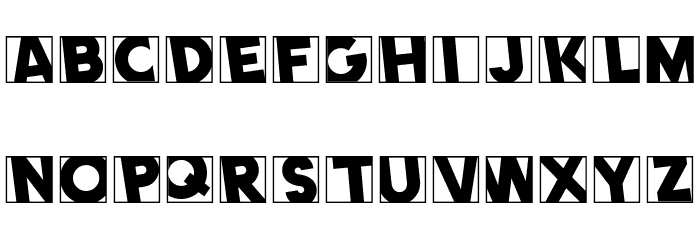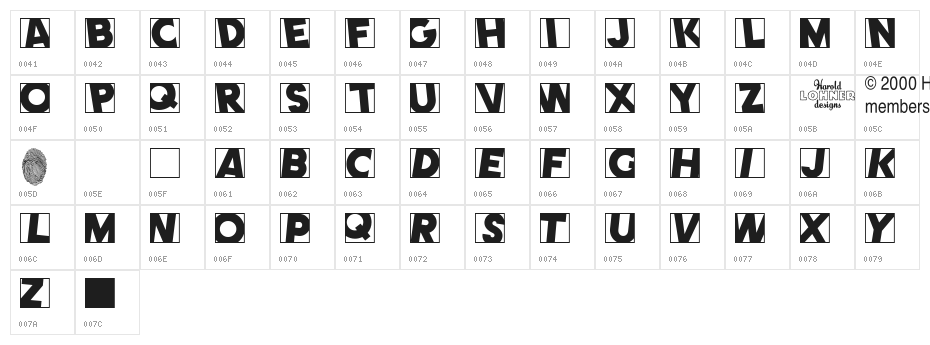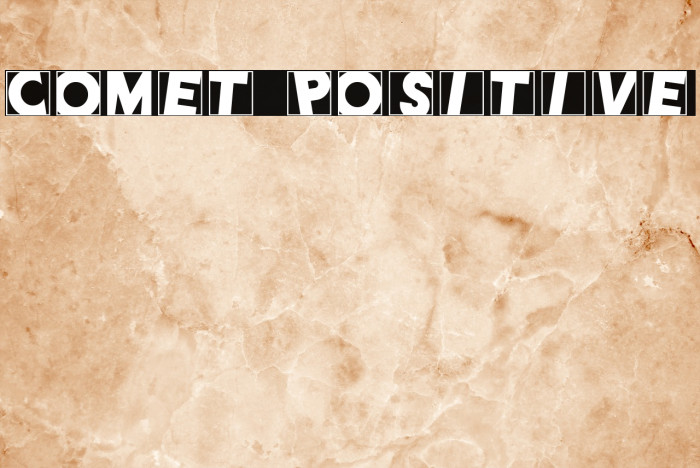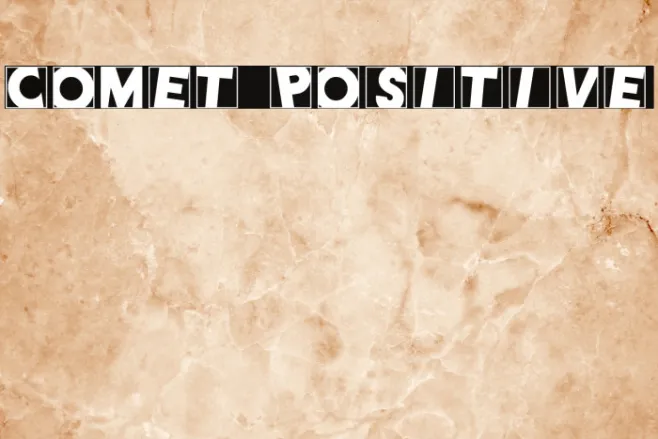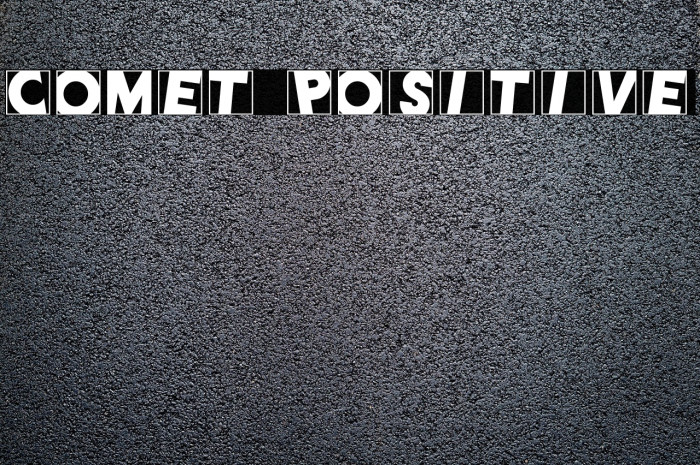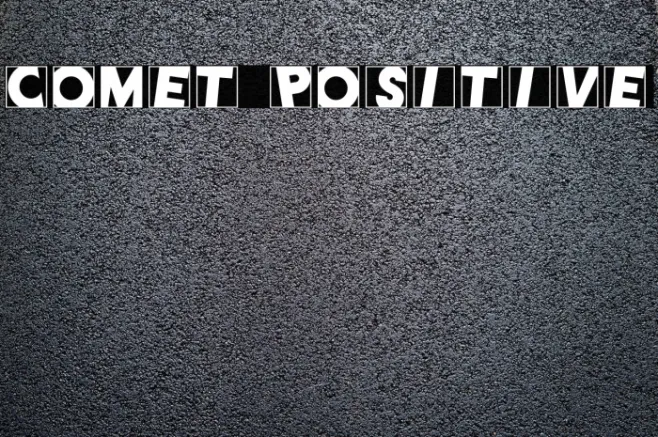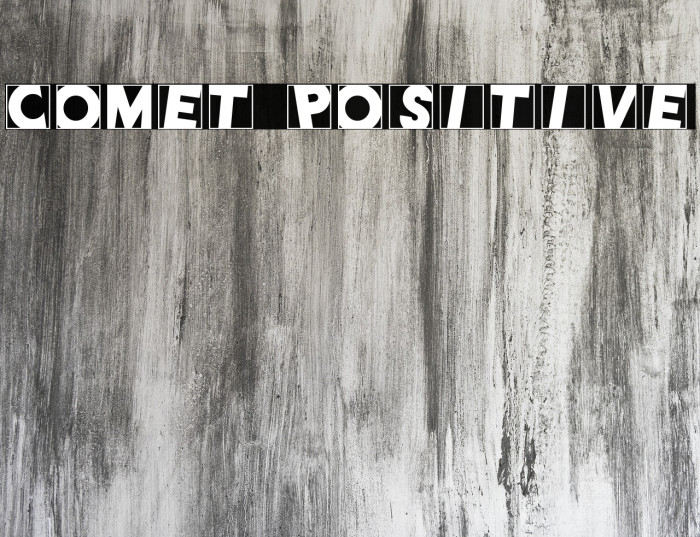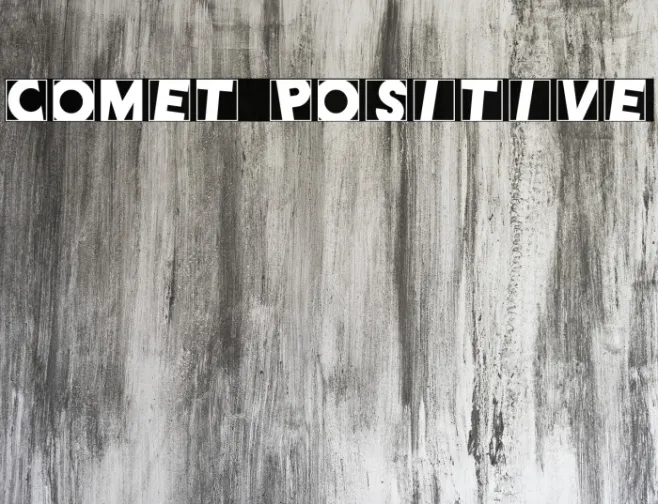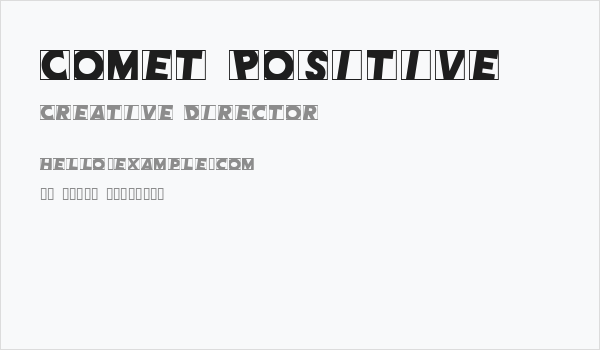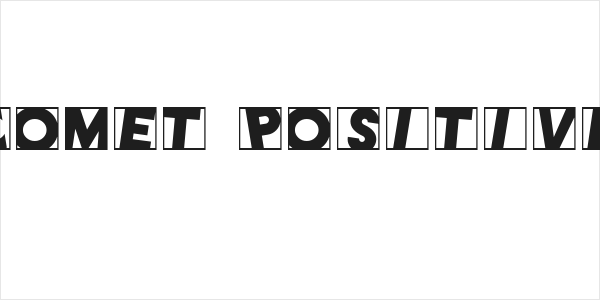
Comet Positive Font
Comet Positive Description
This font features a bold and playful design with each character enclosed in a square, creating a unique and eye-catching appearance. The letters are uppercase and exhibit a dynamic, slightly tilted orientation, adding a sense of movement and energy. The bold strokes and high contrast between the filled and empty spaces within each character enhance its visual impact. The font's quirky and artistic style makes it suitable for creative and informal applications, where a strong visual statement is desired.
| Overall Style | Playful, Artistic |
| Proposed Projects | Ideal for posters, children's books, comic titles, and playful branding projects. |